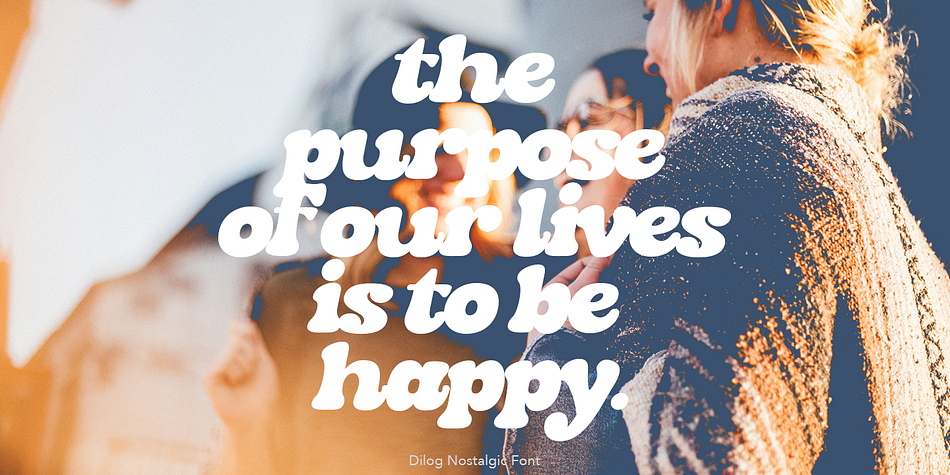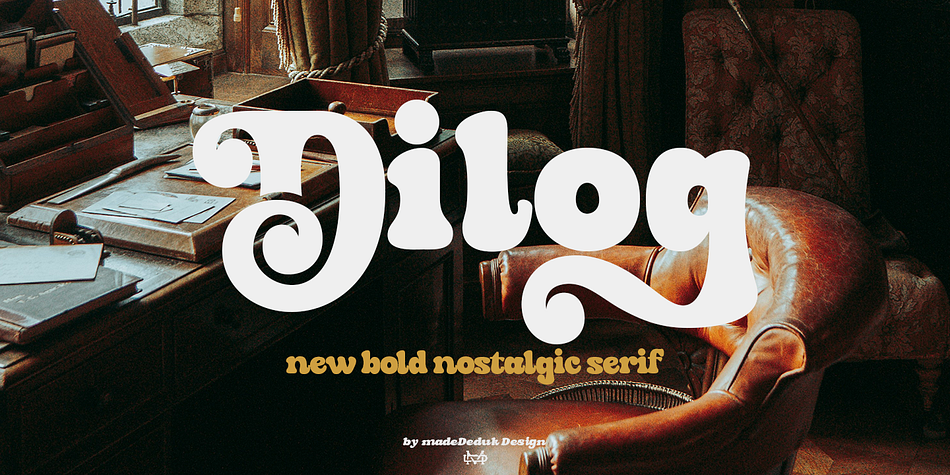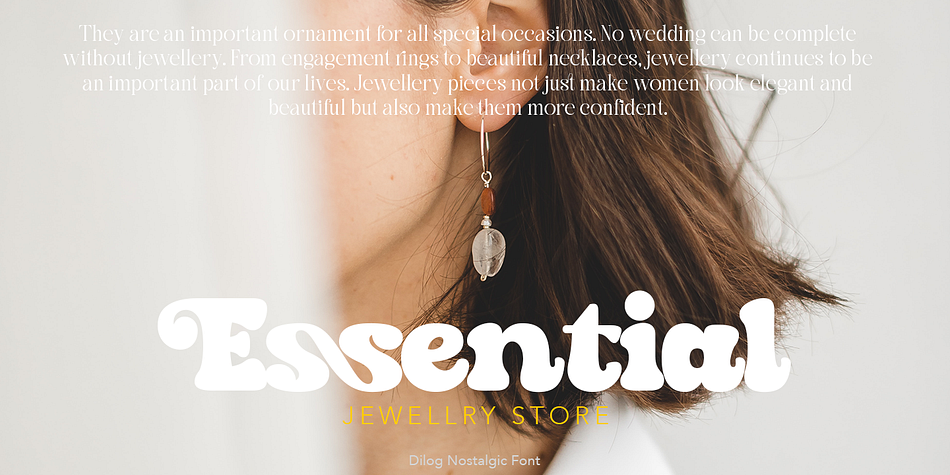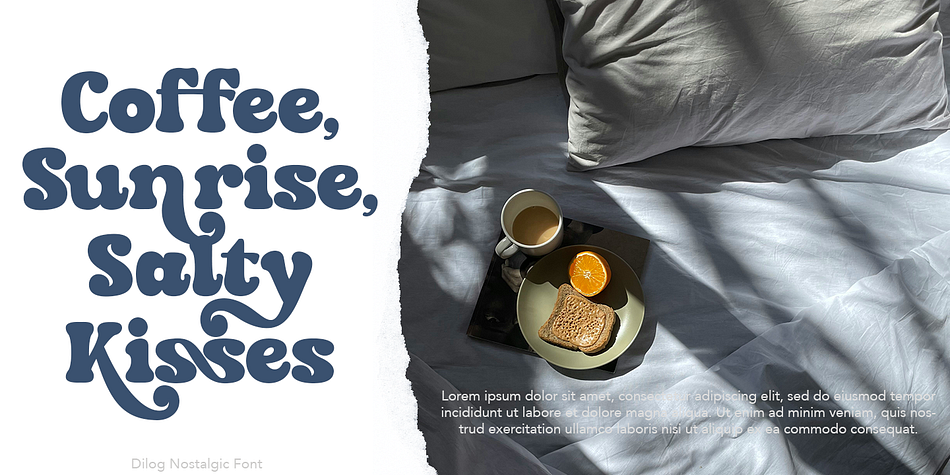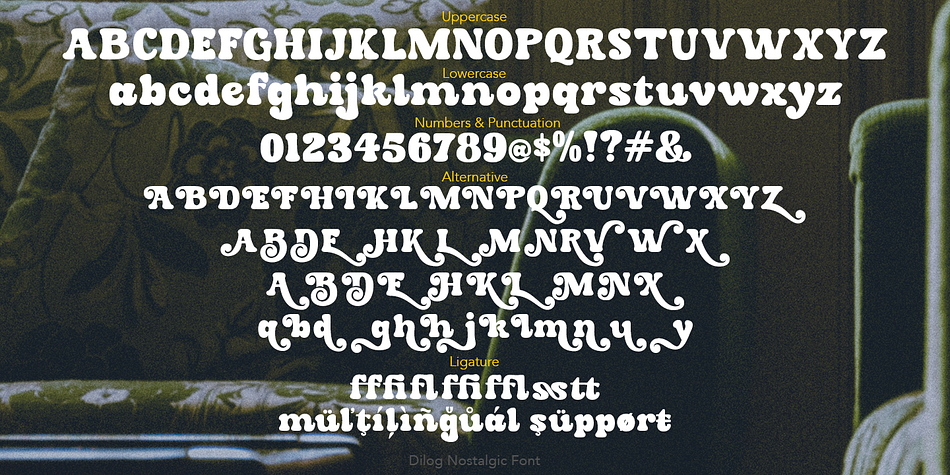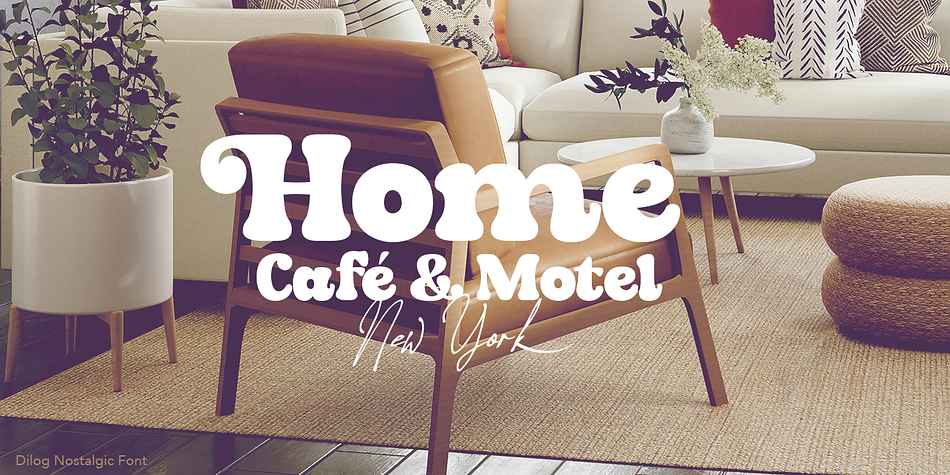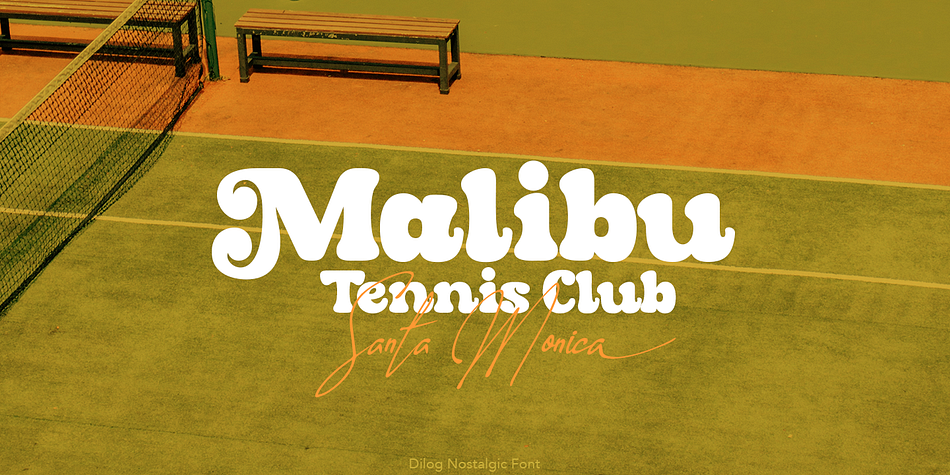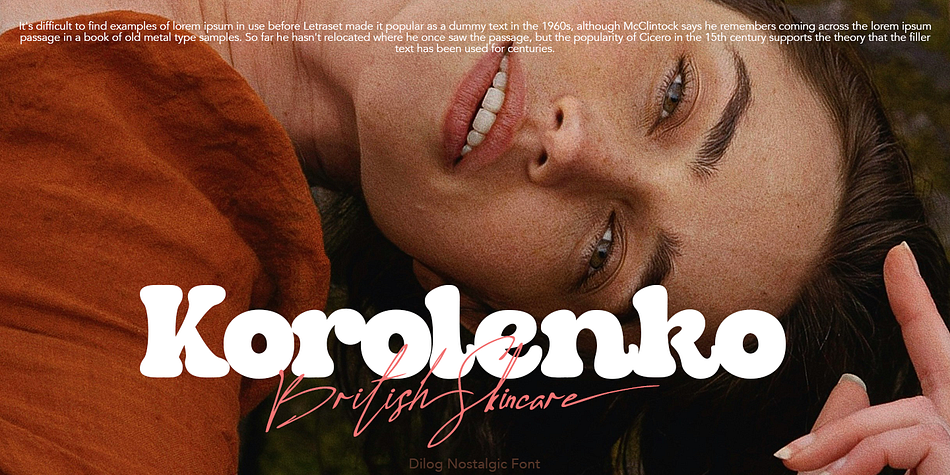
Dilog
Designed by Suandana Ipandemade, Dilog is a retro font family. This typeface has two styles and was published by madeDeduk.
Dilog is a bold nostalgic serif with 80’s retro style serif and refined you can explore and combine creating rhythm for comfortable reading. Come with single weight, legible and expressive shapes. A lot of stylish alternates characters and ligature will makes this font suitable for your any project design.
- Alternative
- Ligature